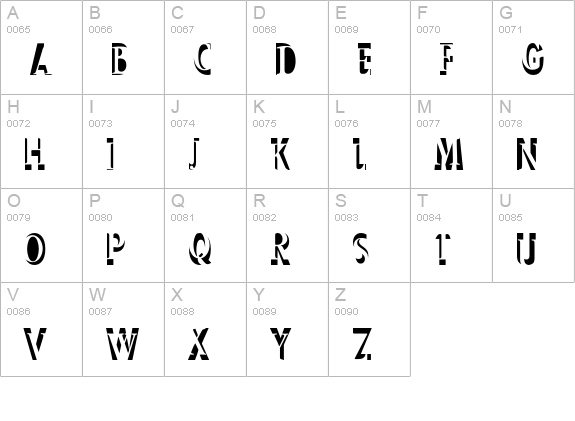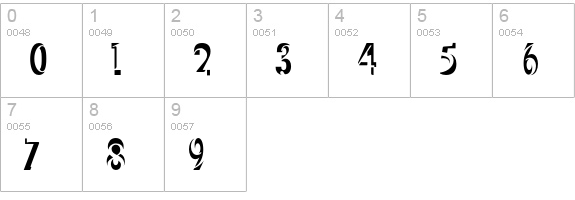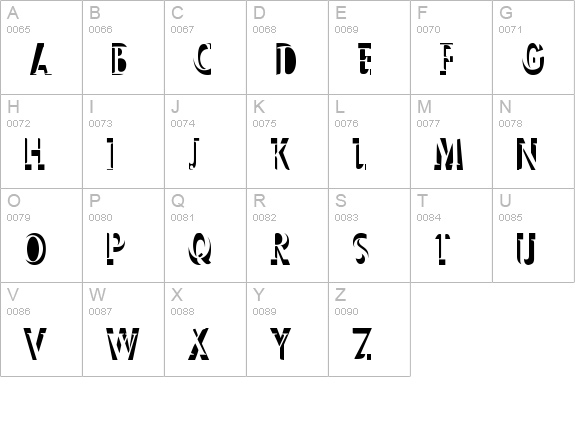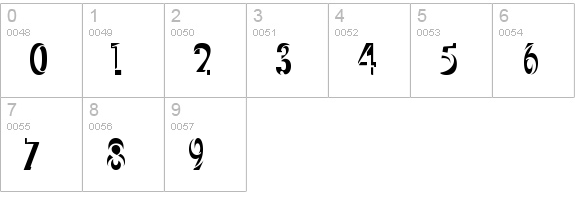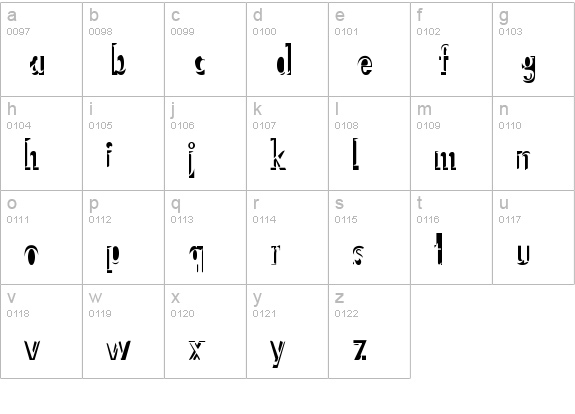
Blackout Font Details
Blackout font is a bold and striking typeface that commands attention with its powerful and edgy design. The font features thick, blocky letters that appear as if they have been stamped or painted with a heavy hand. Perfect for creating impactful headlines, posters, and logos, Blackout font exudes a sense of strength and intensity. And the best part? Blackout font is available for free download at FontsMarket.com. This means that you can easily add this eye-catching font to your design projects without any cost. Don't miss out on the opportunity to enhance your creations with the bold and dynamic style of Blackout font!